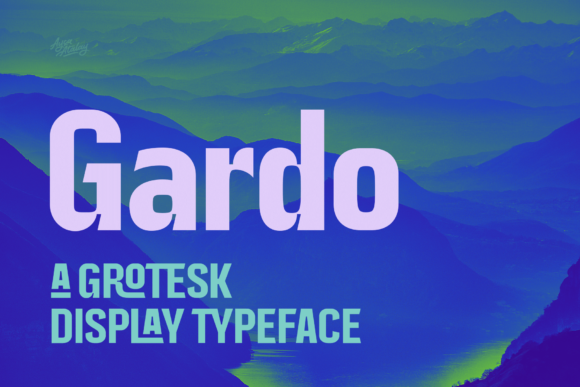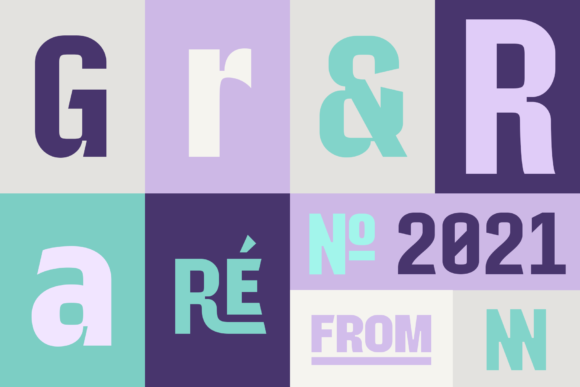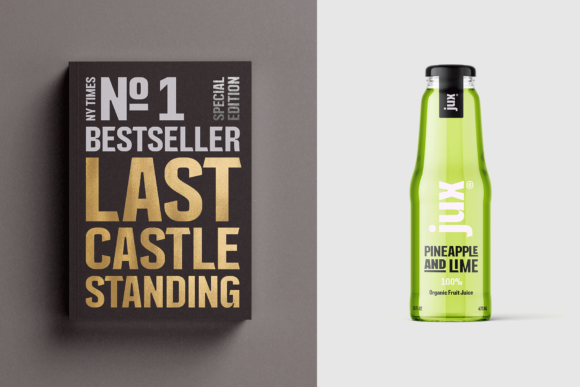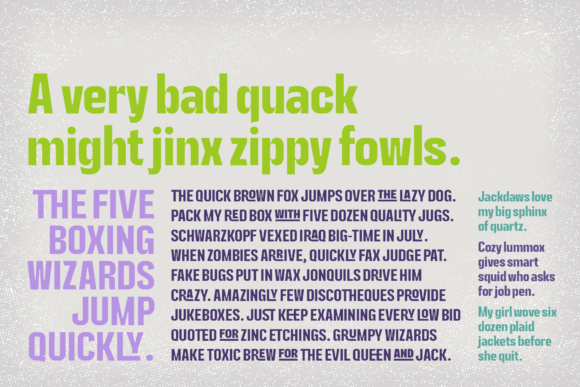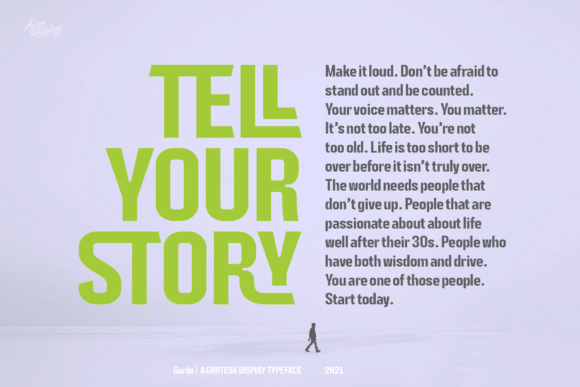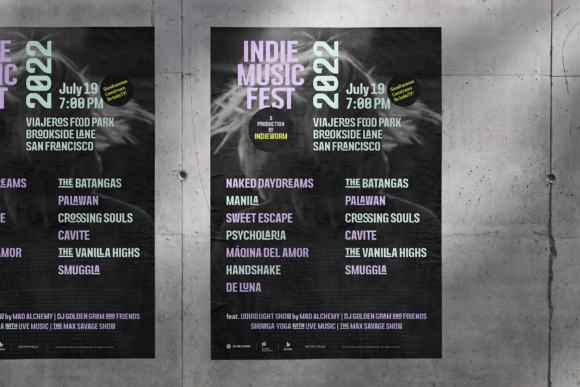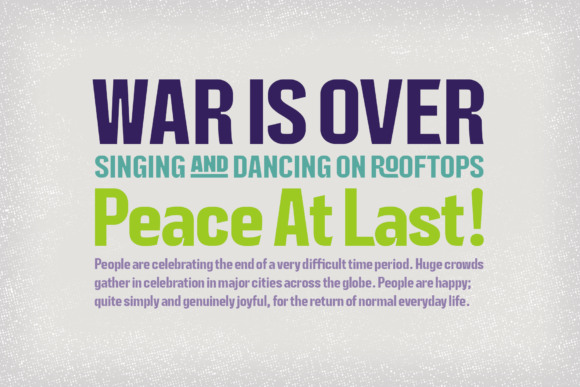
Gardo Grotesk Font: Unleashing the Power of Bold Typography
Have you ever been working on a design project and suddenly, the perfect font pops into your mind? For many designers, this is a moment of pure excitement and creative freedom. The moment you know exactly what your project needs to stand out – and for some, that font is Gardo Grotesk. This bold condensed display typeface is specifically designed to make a strong impact and grab the reader’s attention with its striking visual features and eye-catching ligatures.
Gardo Grotesk Font is perfect for designers who want to create eye-catching headlines, posters, and other visual materials that need a bold statement. With its unique design and PUA encoded features, this font offers endless possibilities for creative expression. Whether you’re working on a fashion brand, a music festival, or a tech startup, Gardo Grotesk Font is sure to bring your design to life.
- Unique Characteristics: Geometric sans-serif design with a modern twist, featuring a unique x-height and subtle rounded corners
Gardo Grotesk Font Review
I recently had the chance to work with the Gardo Grotesk font, and I must say it’s a solid choice for any project. ✨ The font’s modern and clean design makes it perfect for digital interfaces, editorial content, and even branding materials. Its geometric shapes and subtle nuances give it a sophisticated feel that’s hard to resist.
One of the things I appreciate most about Gardo Grotesk is its versatility. It comes in a wide range of weights, from light to bold, allowing you to create a consistent visual identity across your project. Additionally, the font’s x-height is well-proportioned, making it easy to read and understand even at small sizes.
However, there are a few limitations to consider. ⚠️ For one, the font’s italic styles can feel a bit forced, and the italic ‘k’ can be a bit awkward to read. Additionally, the font’s ligatures are not as extensive as some other fonts in this category, which may limit its use in certain contexts.
Pros:
- Modern and clean design
- Wide range of weights
- Well-proportioned x-height
- Versatile and suitable for various projects
Cons:
- Forced italic styles
- Awkward italic ‘k’ character
- Limited ligatures
Overall, I’d say the Gardo Grotesk font is a great choice for projects that require a modern and sophisticated feel. While it may have some limitations, its strengths far outweigh its weaknesses, making it a solid addition to any designer’s toolkit.
Tips for Getting the Most Out of Gardo Grotesk
Experiment with different font combinations to create unique visual effects.
Use Gardo Grotesk in conjunction with other sans-serif fonts for a modern look.
Adjust the font size and style to create contrast and visual interest.
Use Gardo Grotesk for headings and subheadings to create a clear hierarchy of information.
Gardo Grotesk is ideal for modern branding and marketing materials, such as logos, business cards, and brochures.
It’s also suitable for digital products, such as apps, websites, and social media graphics.
Use Gardo Grotesk for editorial content, such as magazines, newspapers, and blogs, to create a clean and modern look.